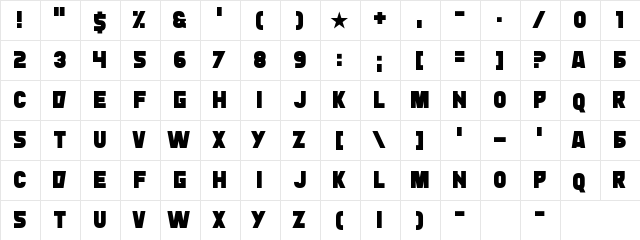
Typingrad Regular
| Designer | NAL |
Design Context for Typingrad Typeface
Typingrad is a composed and adaptable typeface that performs quietly and consistently across a wide range of design contexts.